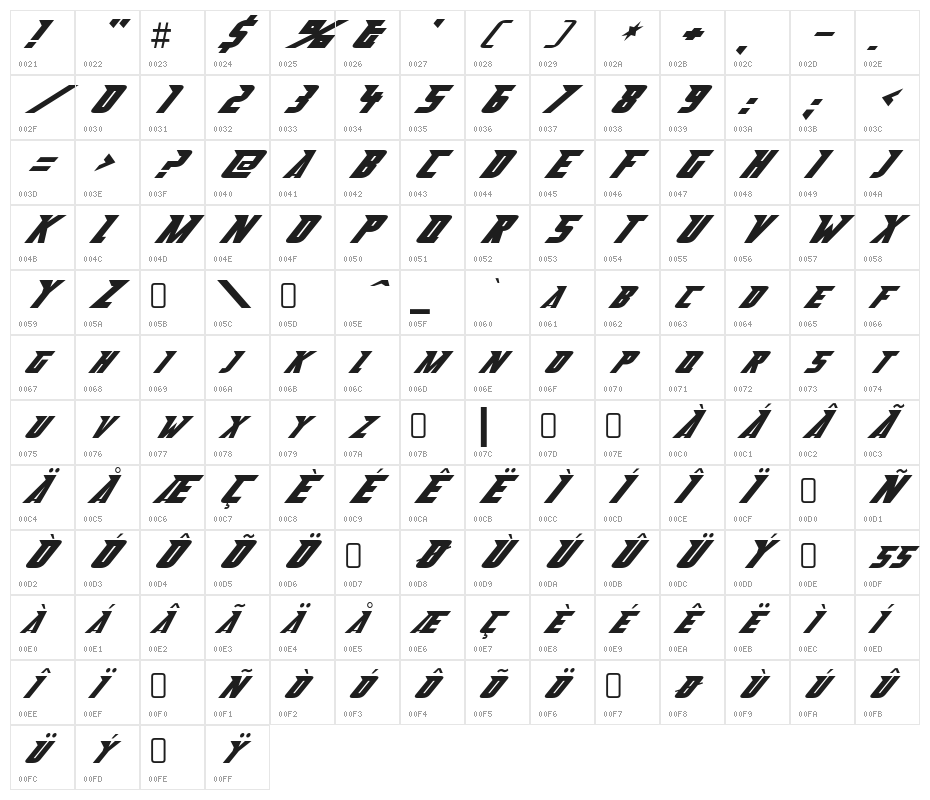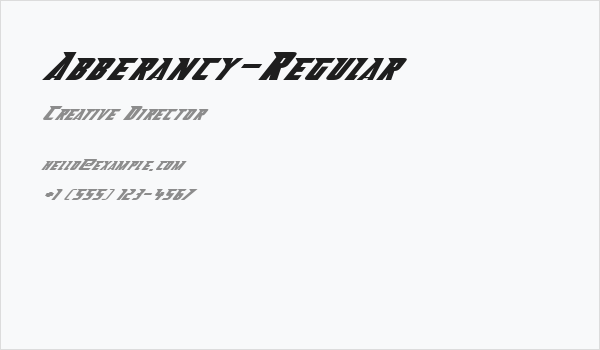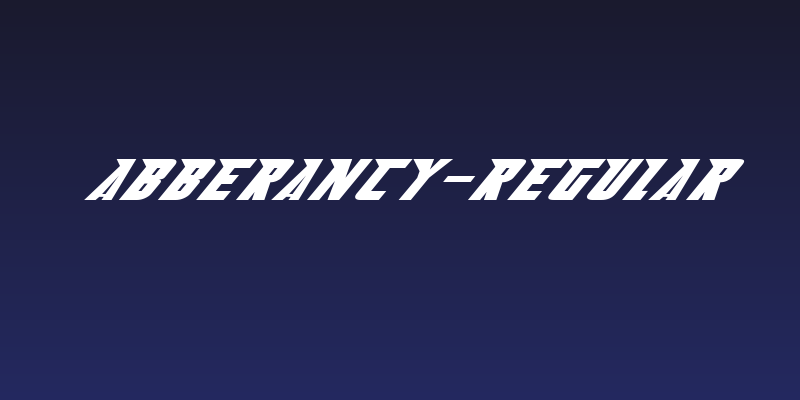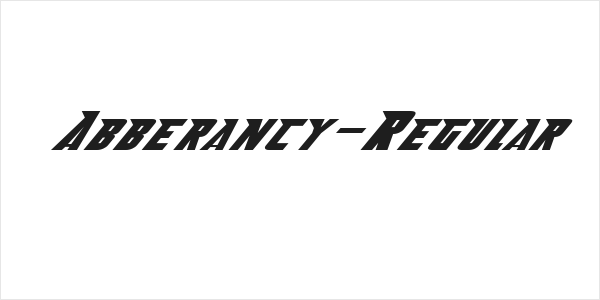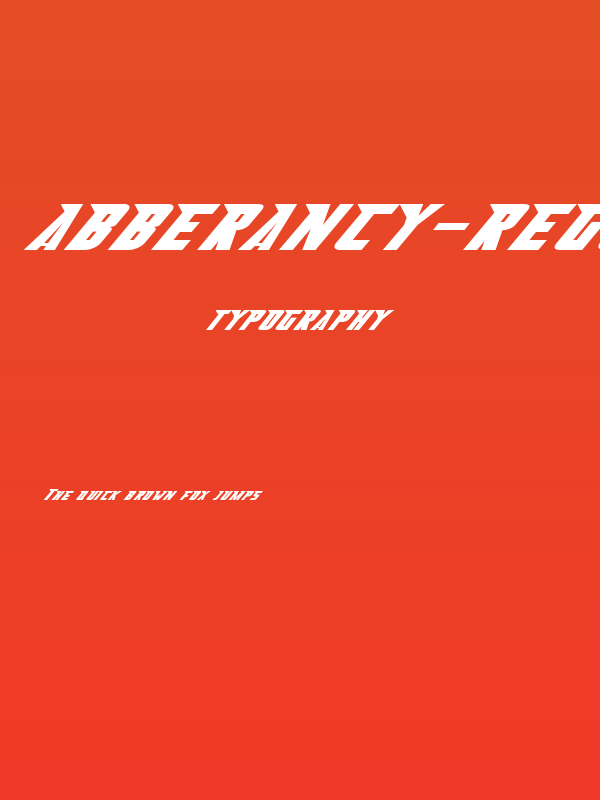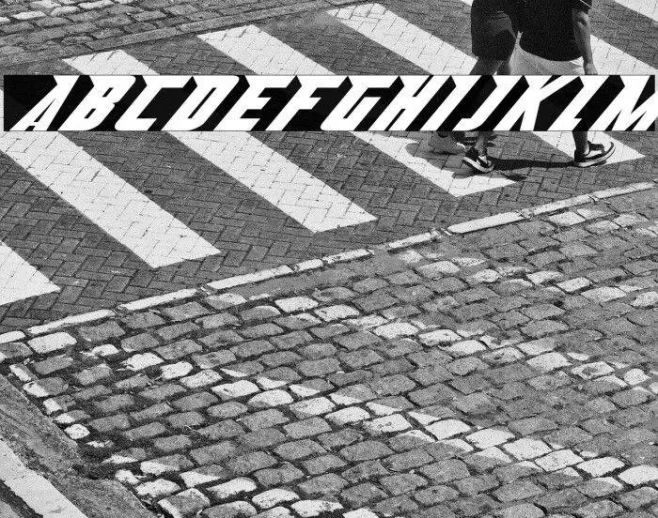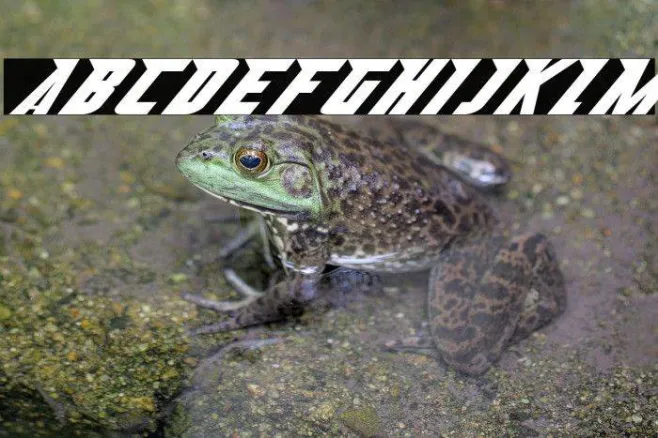
Abberancy-Regular Font
Abberancy-Regular Description
This font features a bold and dynamic design with a strong slant, giving it a sense of motion and energy. The characters are sharply angled, with thick strokes that create a powerful visual impact. The uppercase and lowercase letters maintain a consistent style, enhancing readability while preserving the font's distinctive flair. Numbers and special characters are designed with the same boldness, ensuring uniformity across all elements. This font's aggressive and modern appearance makes it suitable for projects that require a strong and assertive typographic presence.
| Proposed Projects | Ideal for sports branding, action movie posters, video game titles, and dynamic advertising campaigns. |